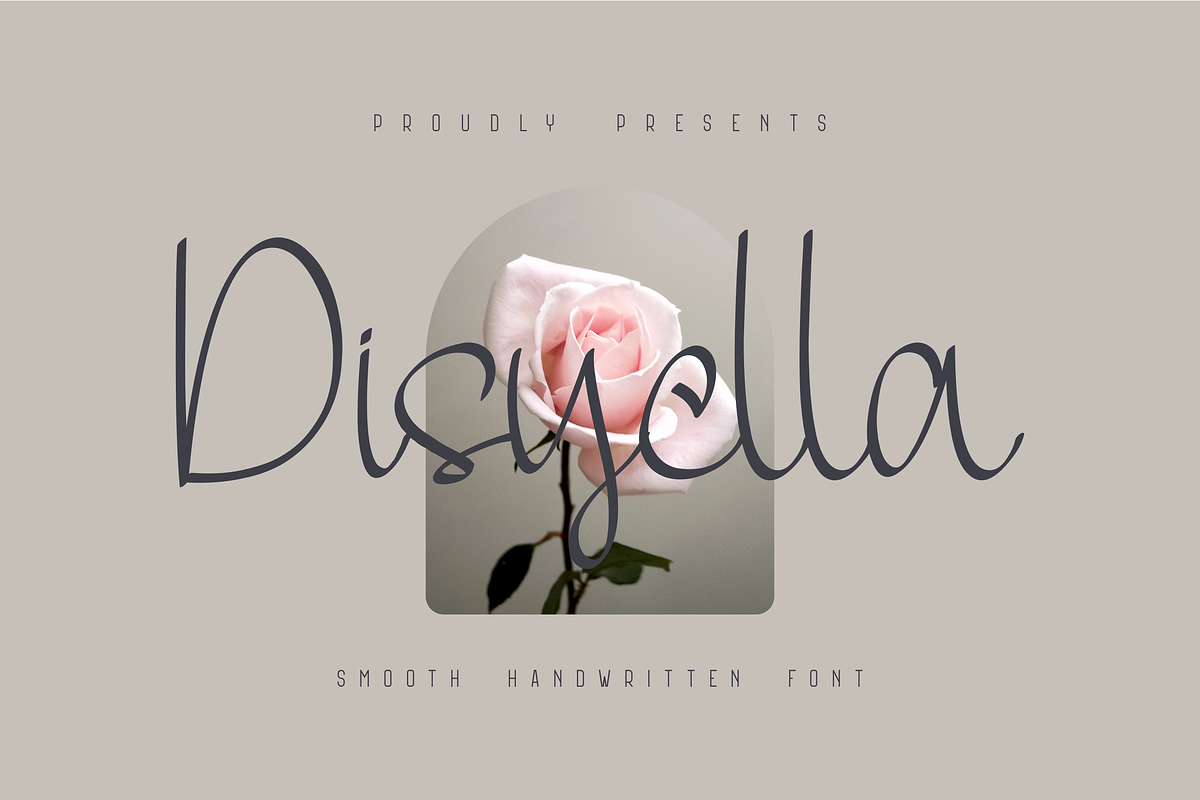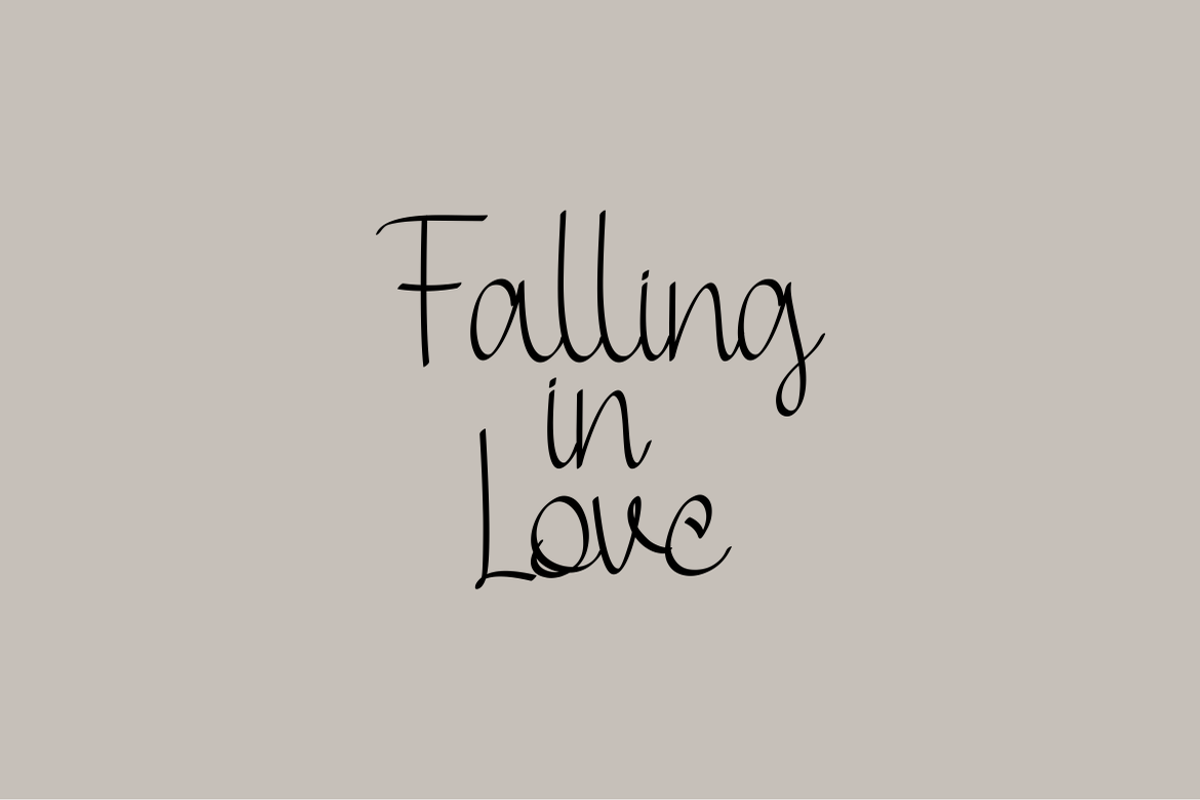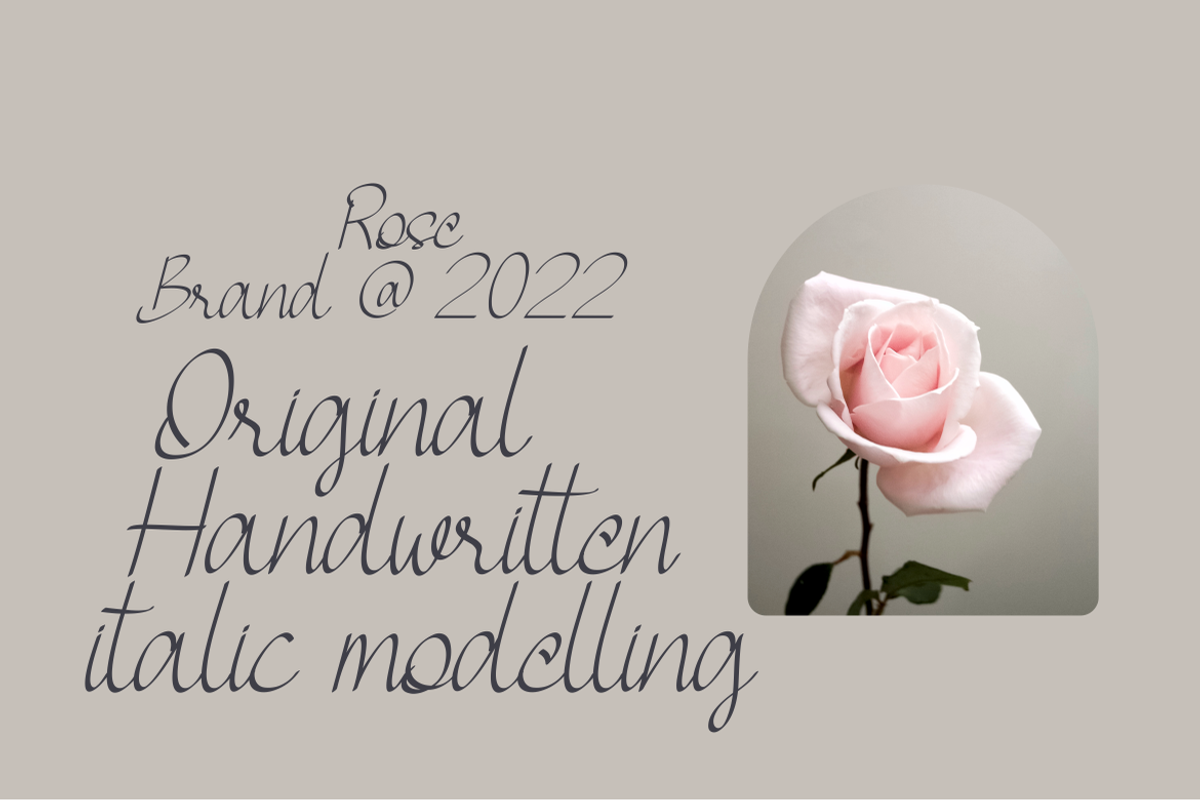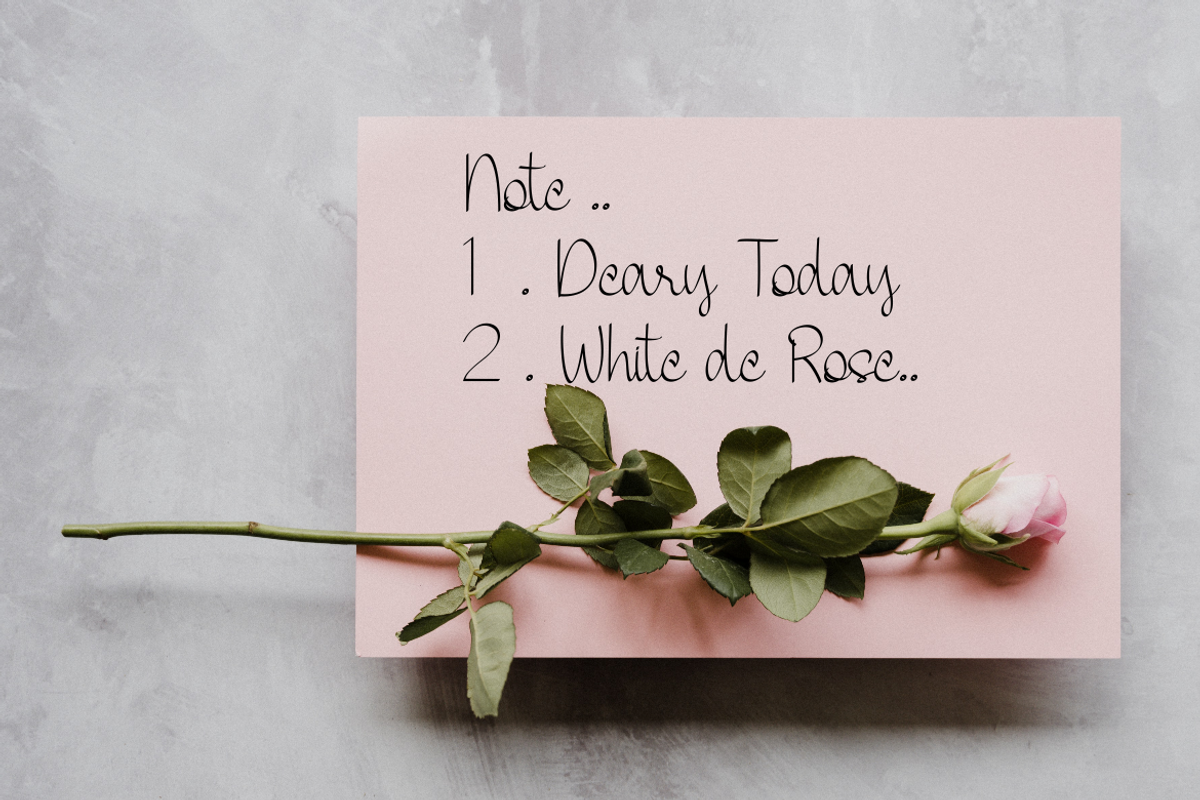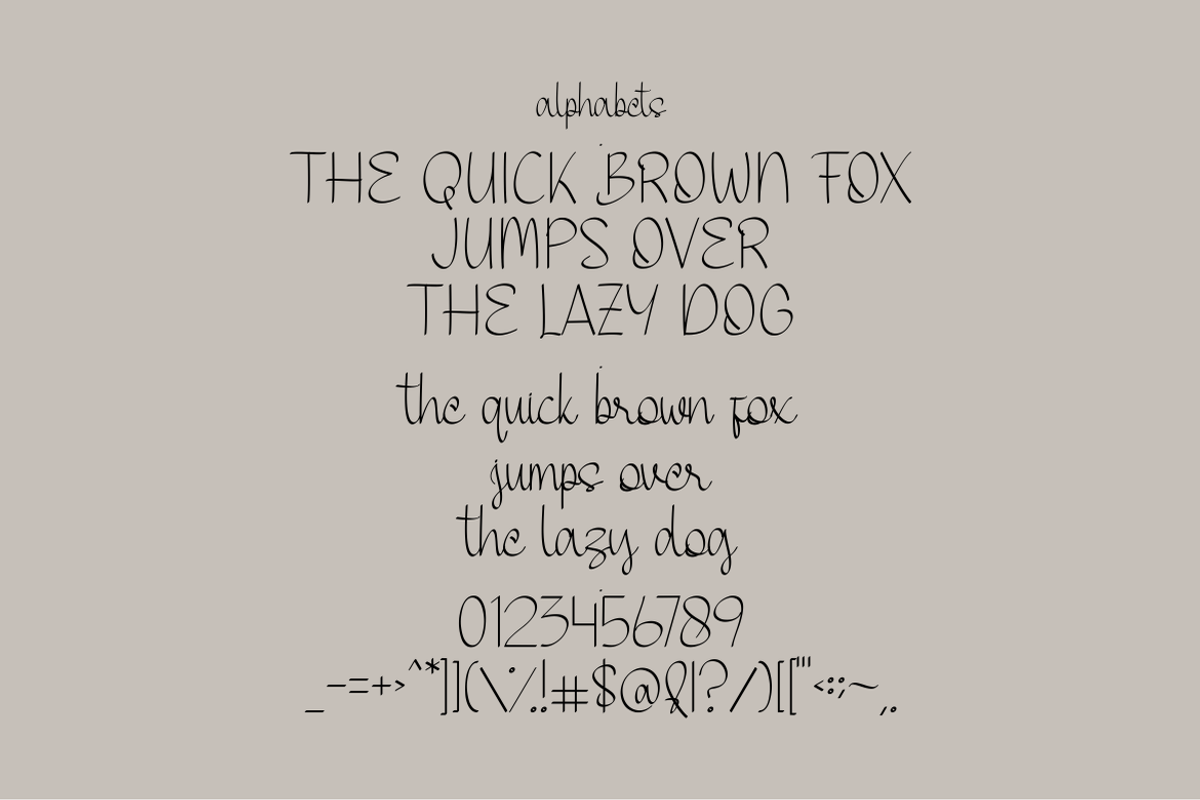
Dhisyella Font
Dhisyella Font It has a elegant, classy look and modern. It’s a great font for fashion, apparel projects, signature, album cover,logo, branding, magazine, social media, & advertisements, but also works great for other projects.